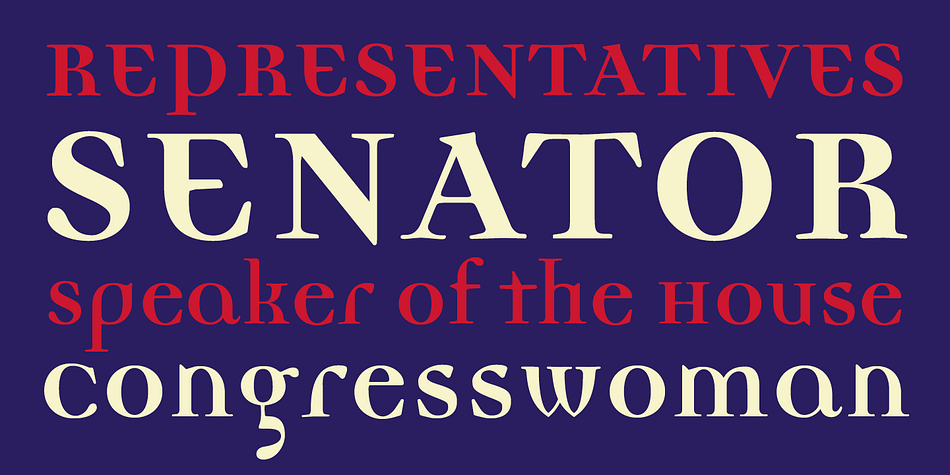
Democratica
Designed by Miles Newlyn, Democratica is a historical and display serif font family. This typeface has two styles and was published by Emigre.
Democratica is a synthesis of the connections between the crude struggle for democracy in the former USSR and the crudeness of the many recent modular typeface designs.
I tried to conceive the individual letters as people who wanted the same so called freedom of others but which was in actual fact just another set of rules.
People were designing so many modular typefaces that it made me mad.
The cut, copy & paste ethic of the Mac was often producing typefaces that were so unsympathetic to the Roman framework that what they emulated, seemed more akin in method to the gothic style of regulated textural pen strokes that preceded the humanistic trends of the Renaissance.
Democratica is a synthesis of the connections between the crude struggle for democracy in the former USSR and the crudeness of the many recent modular typeface designs. I tried to conceive the individual letters as people who wanted the same so called freedom of others but which was in actual fact just another set of rules. People were designing so many modular typefaces that it made me mad. The cut, copy & paste ethic of the Mac was often producing typefaces that were so unsympathetic to the Roman framework that what they emulated, seemed more akin in method to the gothic style of regulated textural pen strokes that preceded the humanistic trends of the Renaissance.